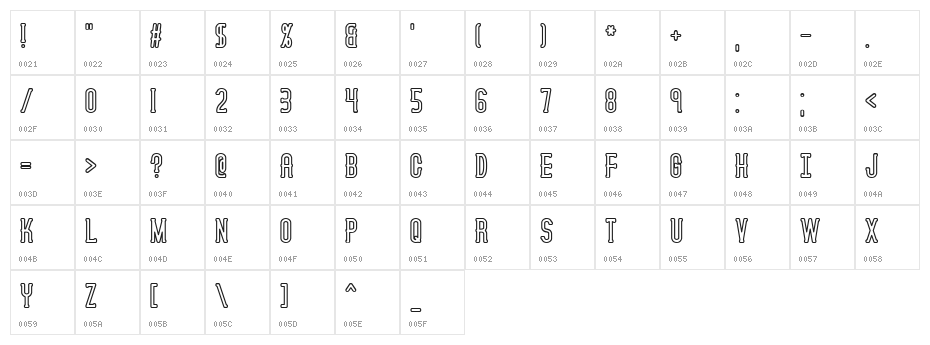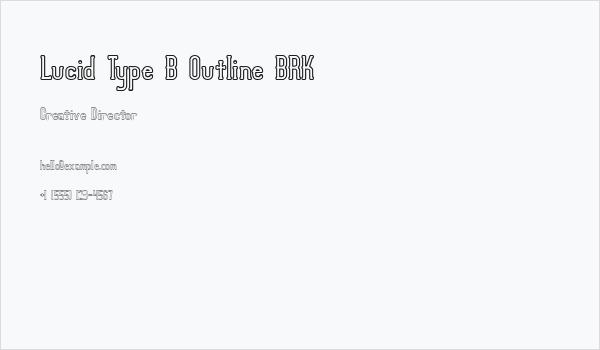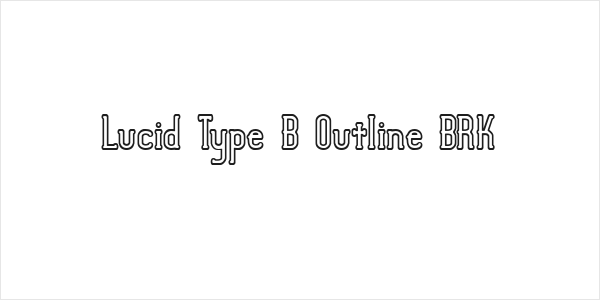
Lucid Type B Outline BRK Font
Lucid Type B Outline BRK Description
This font features a bold, outlined style with a playful and modern aesthetic. Each character is defined by a thick outer line, creating a hollow effect that adds depth and dimension. The uppercase and lowercase letters maintain a consistent width, giving the font a uniform appearance. The numerals and special characters are designed to match the overall style, ensuring cohesion across all elements. The font's unique outline design makes it stand out, making it ideal for creative projects that require a distinctive look.
| Proposed Projects | Ideal for posters, headlines, logos, and any design project that requires a standout, creative font. |